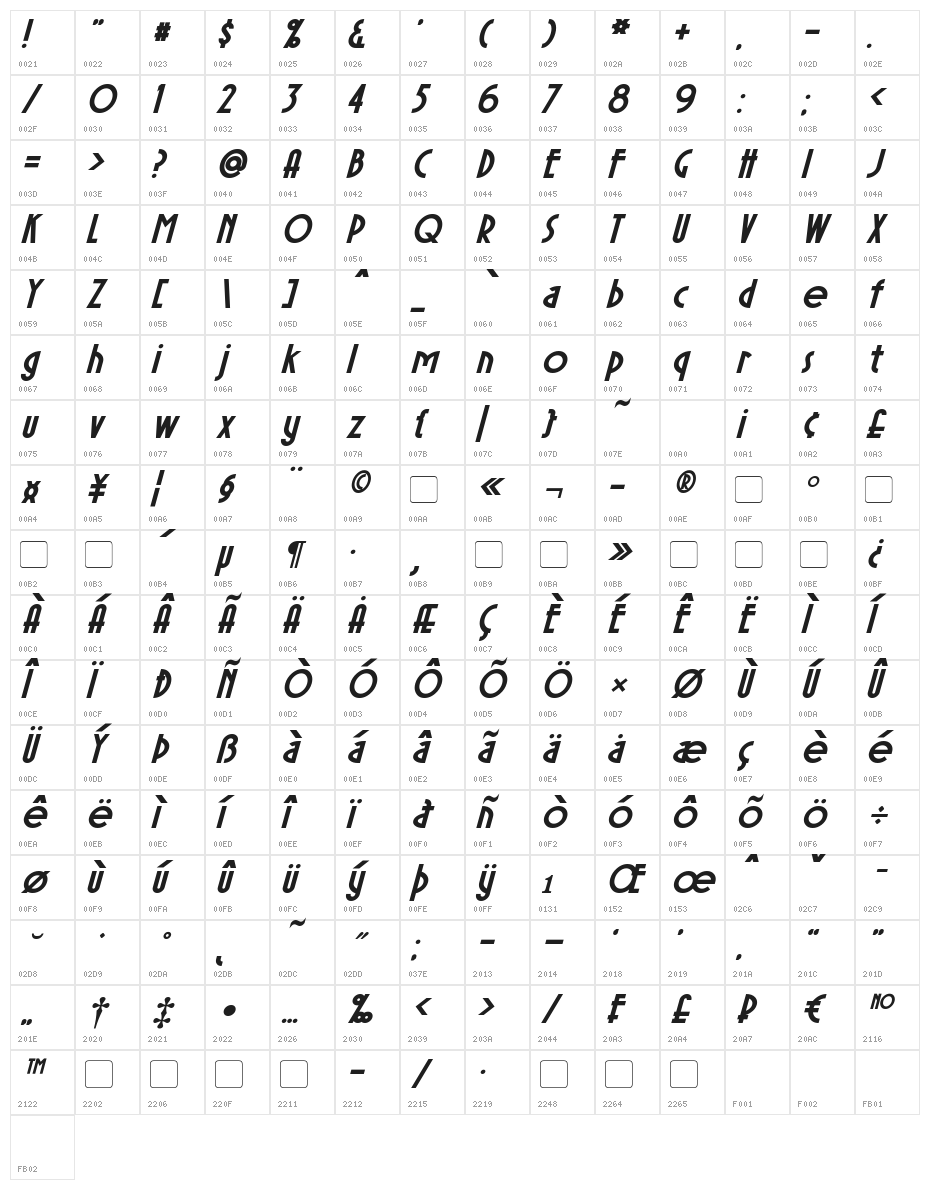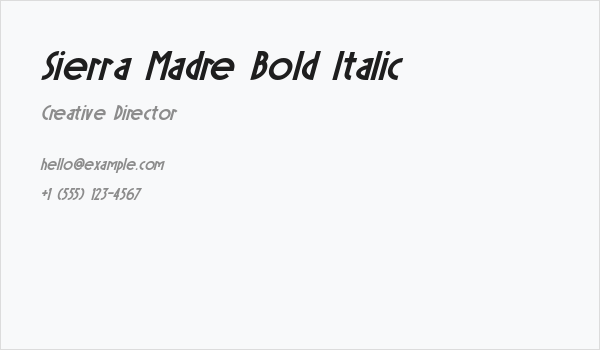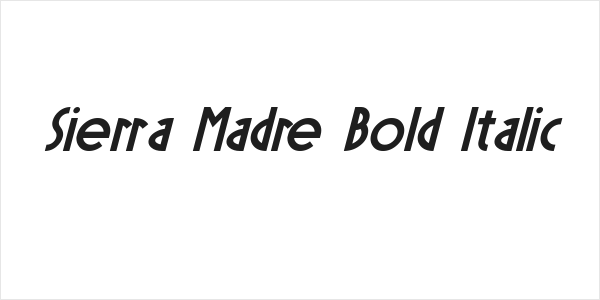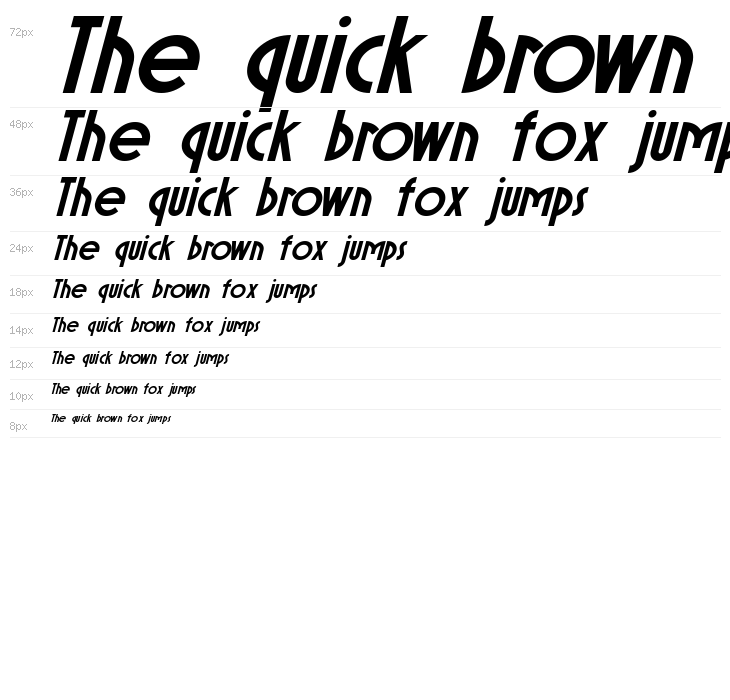
Sierra Madre Bold Italic Font
Sierra Madre Bold Italic Description
This font features a bold and italicized style with a distinct slant, giving it a dynamic and energetic appearance. The characters are thick and robust, with a consistent stroke width that enhances readability. The uppercase letters are tall and commanding, while the lowercase letters maintain a smooth flow. The numerals are clear and well-defined, matching the overall boldness of the font. Special characters are creatively designed, adding a unique flair to the font's aesthetic. This typeface is suitable for making a strong visual impact, with its bold presence and italicized slant adding a sense of movement and urgency.